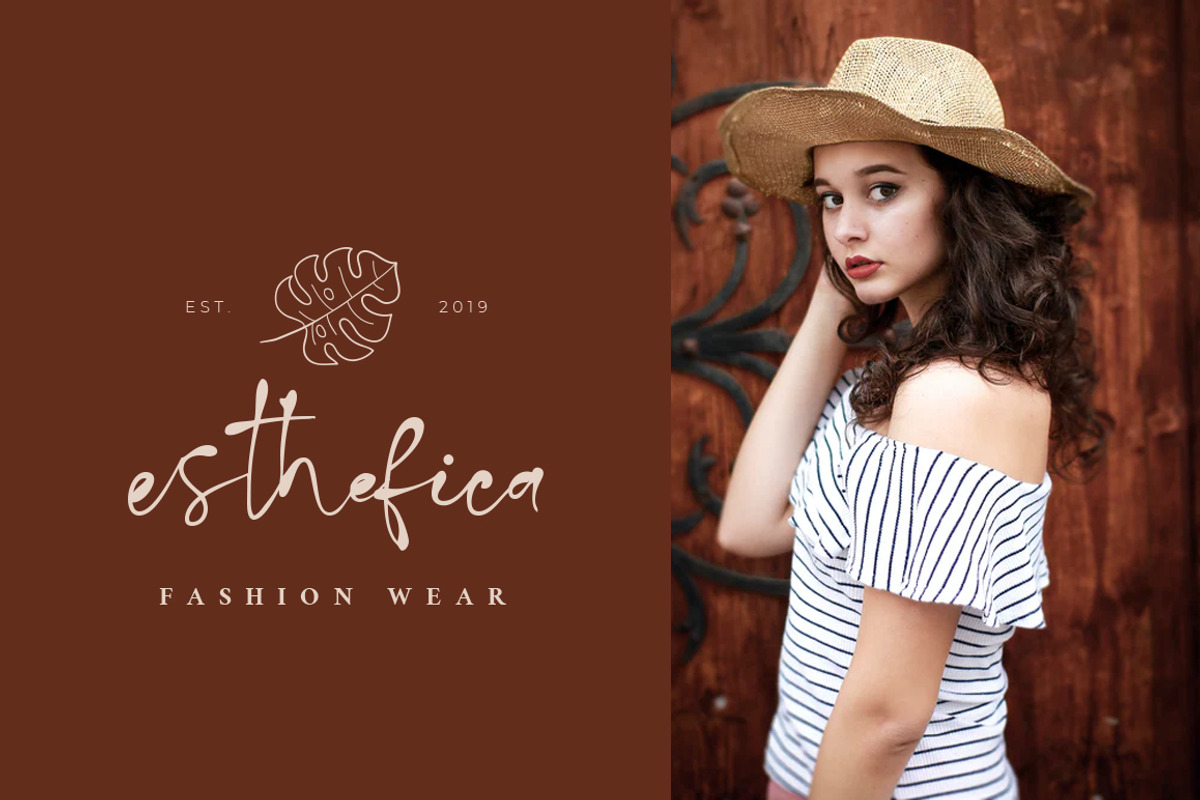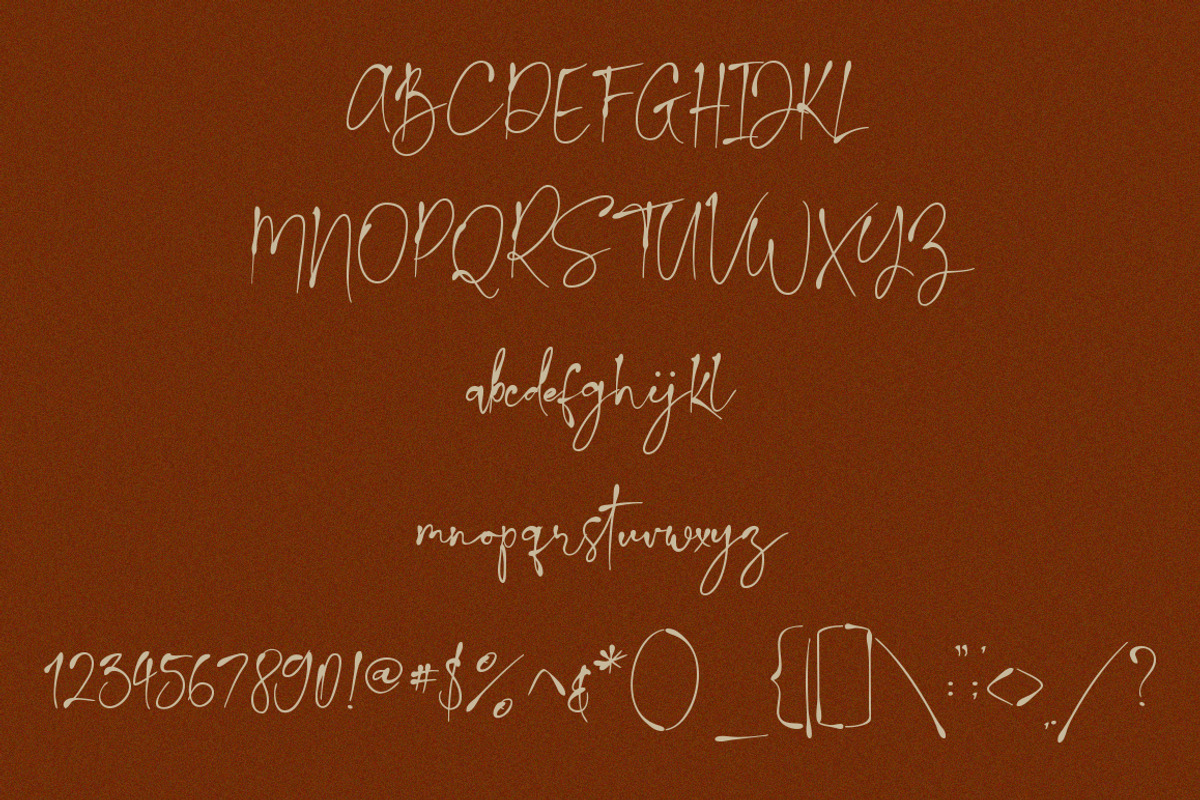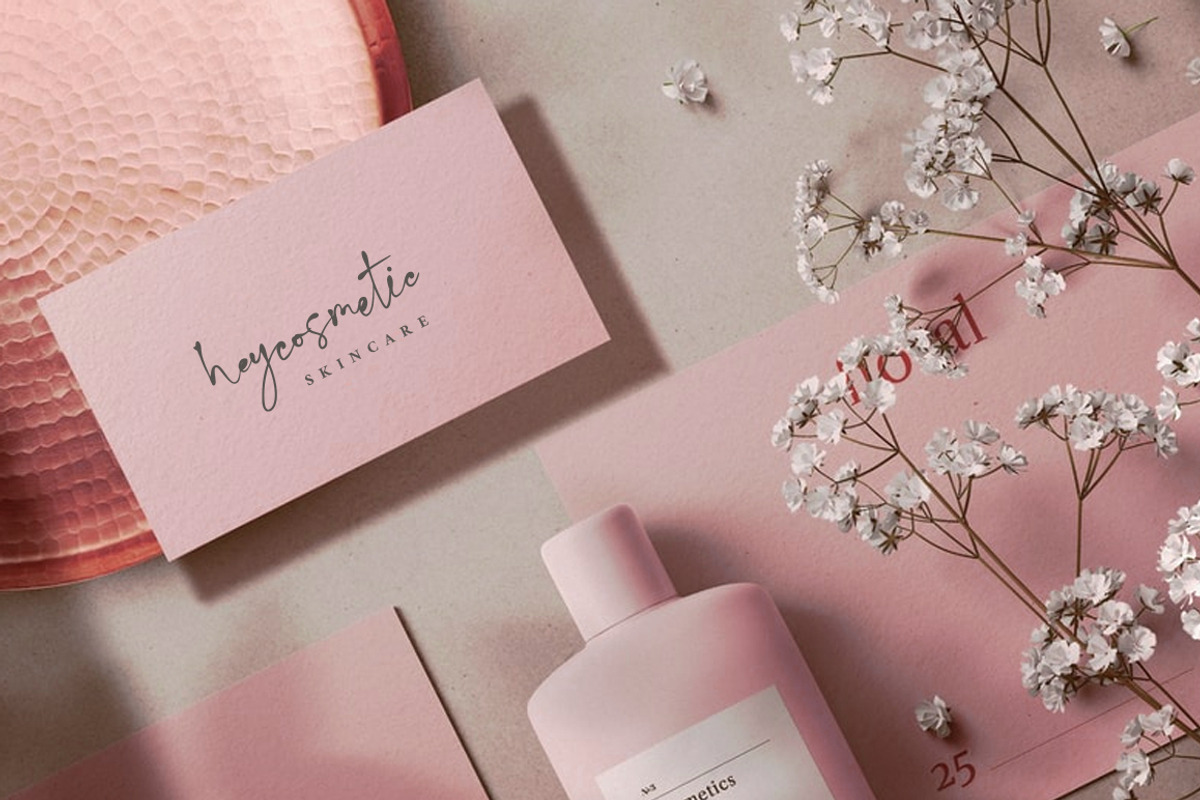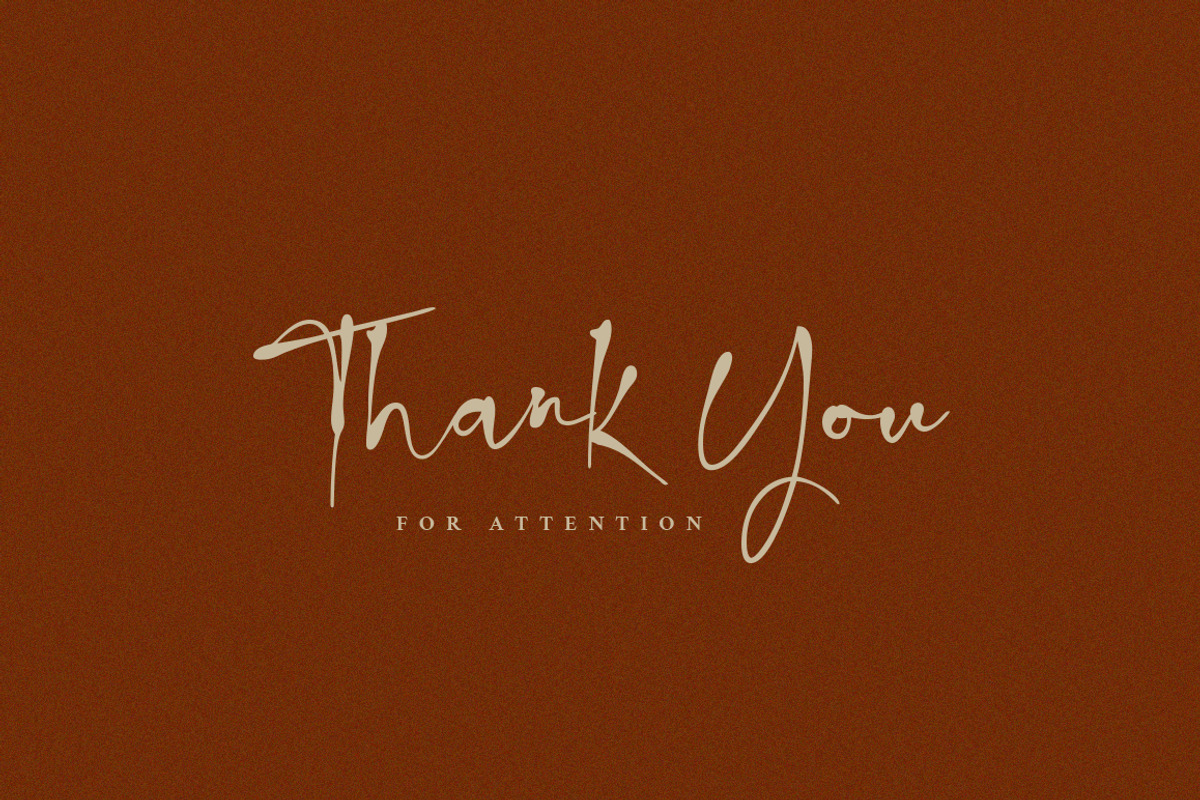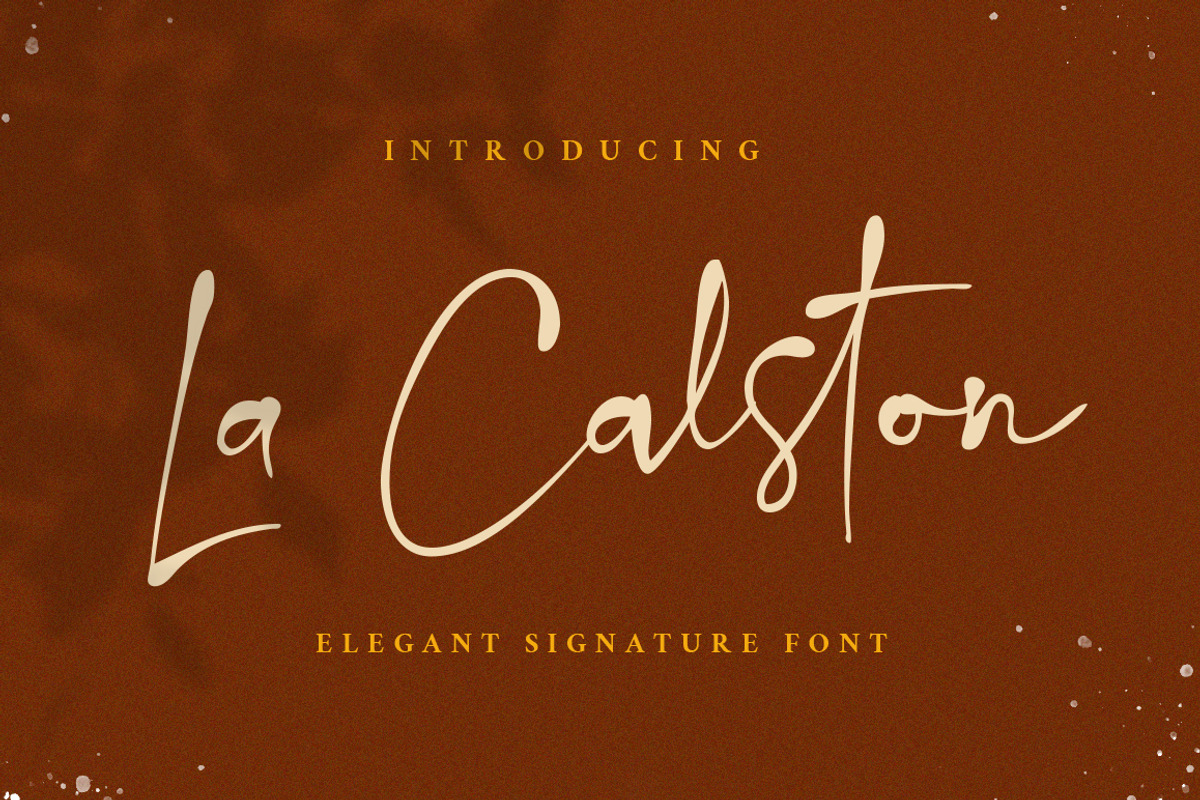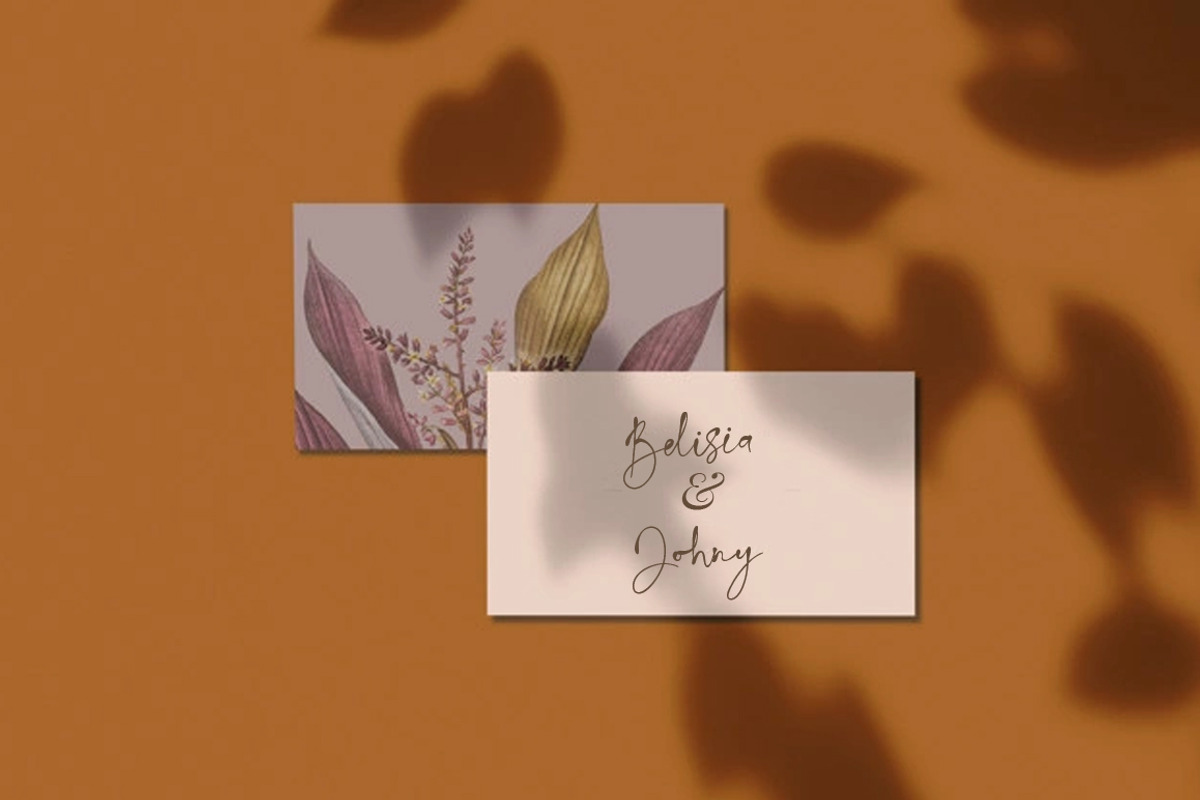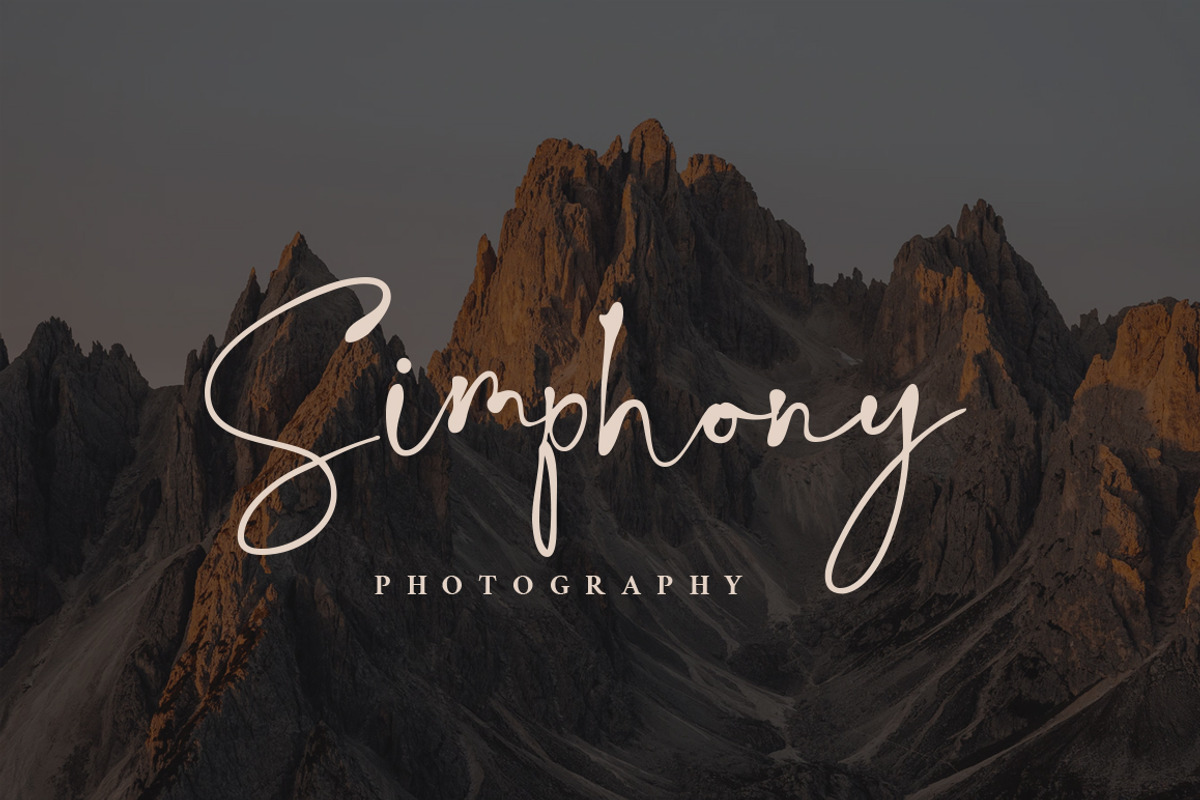
La Calston Script
La Calston Script Font is glorius script with beautiful ligature and alternate font.
inspired by a luxury fashion. Contemporary handwriting fonts with ligatures and alternative styles ready to add unique look and bloom on your design
It easily cooperating together For Magazine, Movies, or Book Titles. For Photography, Wedding Invitation, Restaurant Menu or T-shirt Design. For Flyers, Banner Ads, web and printing. From Food and Fashion to a Cosmetics product
La Calston ScriptFont Features :
- Upper + Lowercase Letters
- Numbers + Punctuation
- Ligature Feature
- OpenType features